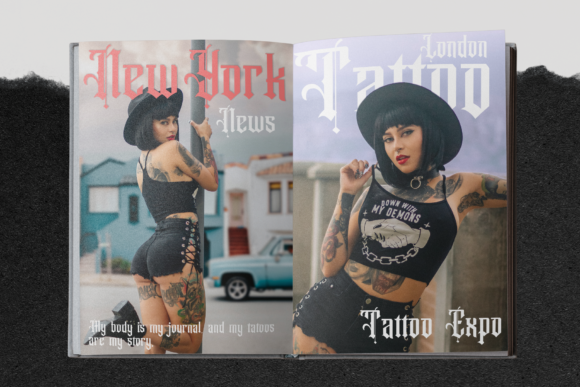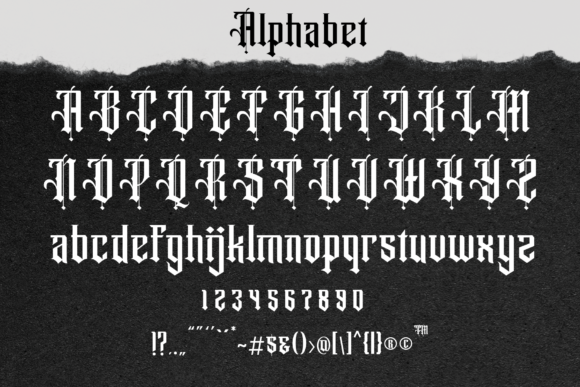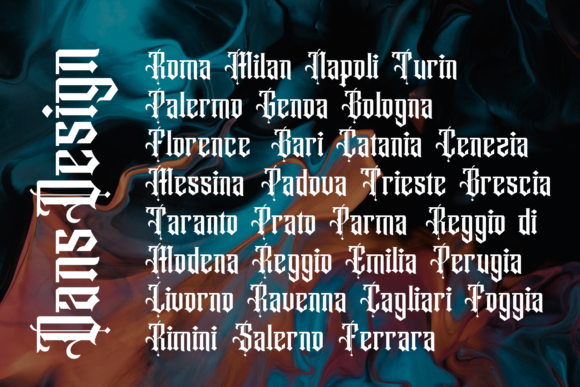
Bring the Drama with the Cromartyc Font
Have you ever stared at a blank canvas, waiting for the perfect idea to strike? It’s that moment of creative clarity when everything comes together – the colors, the typography, the overall aesthetic. For designers, it’s a thrill like no other. And sometimes, all it takes is the right font to elevate your design from good to great.
Enter the Cromartyc Font, a modern blackletter font that’s perfect for adding a touch of drama and elegance to your designs. Whether you’re creating a product logo, poster title, or headline, Cromartyc Font is a versatile choice that’s sure to make an impact. With its rich history and vintage flair, this font is a valuable addition to any designer’s toolkit.
Discover the power of Cromartyc Font and unlock new creative possibilities for your next project. From packaging and branding to clothing and more, this font is a must-have for any designer looking to add a touch of sophistication and style to their work.
Cromartyc Font Key Features
- Unique Characteristics: Cromartyc Font boasts a unique blend of modern and vintage elements, featuring intricate details, elegant lines, and subtle flair, making it perfect for creative and artistic projects.
- Font Metrics: Cromartyc Font has a x-height of 550, an ascender height of 750, and a descender height of 300, providing a well-balanced and readable experience for users.
Cromartyc Font Review
I’ve had the chance to work with the Cromartyc Font, and I must say it’s a unique addition to any design project. Here are my thoughts.
- Distinctive Style – The Cromartyc Font has a distinct, elegant feel that sets it apart from more common fonts. It’s perfect for designs that need a touch of sophistication.
- Readability – Despite its ornate appearance, the Cromartyc Font is surprisingly readable, even at smaller font sizes.
- Flexibility – It can be used in a wide range of applications, from headings to body text, and still look great.
- Limited Character Set – The Cromartyc Font doesn’t come with a full character set, which can make it difficult to use in languages that require more complex characters.
- Not Ideal for Body Text – While the Cromartyc Font is great for headings, it can be a bit overwhelming for large blocks of body text.
The Cromartyc Font is a solid choice for designers who want to add a touch of elegance to their projects. While it has its limitations, its unique style and flexibility make it a great addition to any design arsenal. With a little creativity, you can work around its limitations and create stunning designs that showcase its best features.
Cromartyc Font Practical Application Guide
Tips for Getting the Most Out of Cromartyc Font
Use Cromartyc Font to add a touch of elegance and sophistication to your designs. Experiment with different font sizes, colors, and styles to create visually appealing combinations. Combine Cromartyc with other fonts to add depth and interest to your designs.
Cromartyc Font is ideal for:
– Wedding invitations and stationery
– Luxury branding and marketing materials
– High-end fashion and beauty designs
– Any design that requires a touch of sophistication and elegance
Alternatives to Cromartyc Font
Montserrat is a sans-serif font designed by Julieta Ulanovsky. It is a great alternative to Cromartyc Font for projects that require a modern and clean look. Montserrat is highly legible and works well for both body text and headings.
Is the Cromartyc Font family optimized for web use?
Yes, the Cromartyc Font family is optimized for web use, with features such as subpixel rendering, ligature support, and advanced hinting. This ensures a smooth and crisp display on various screen resolutions and devices.